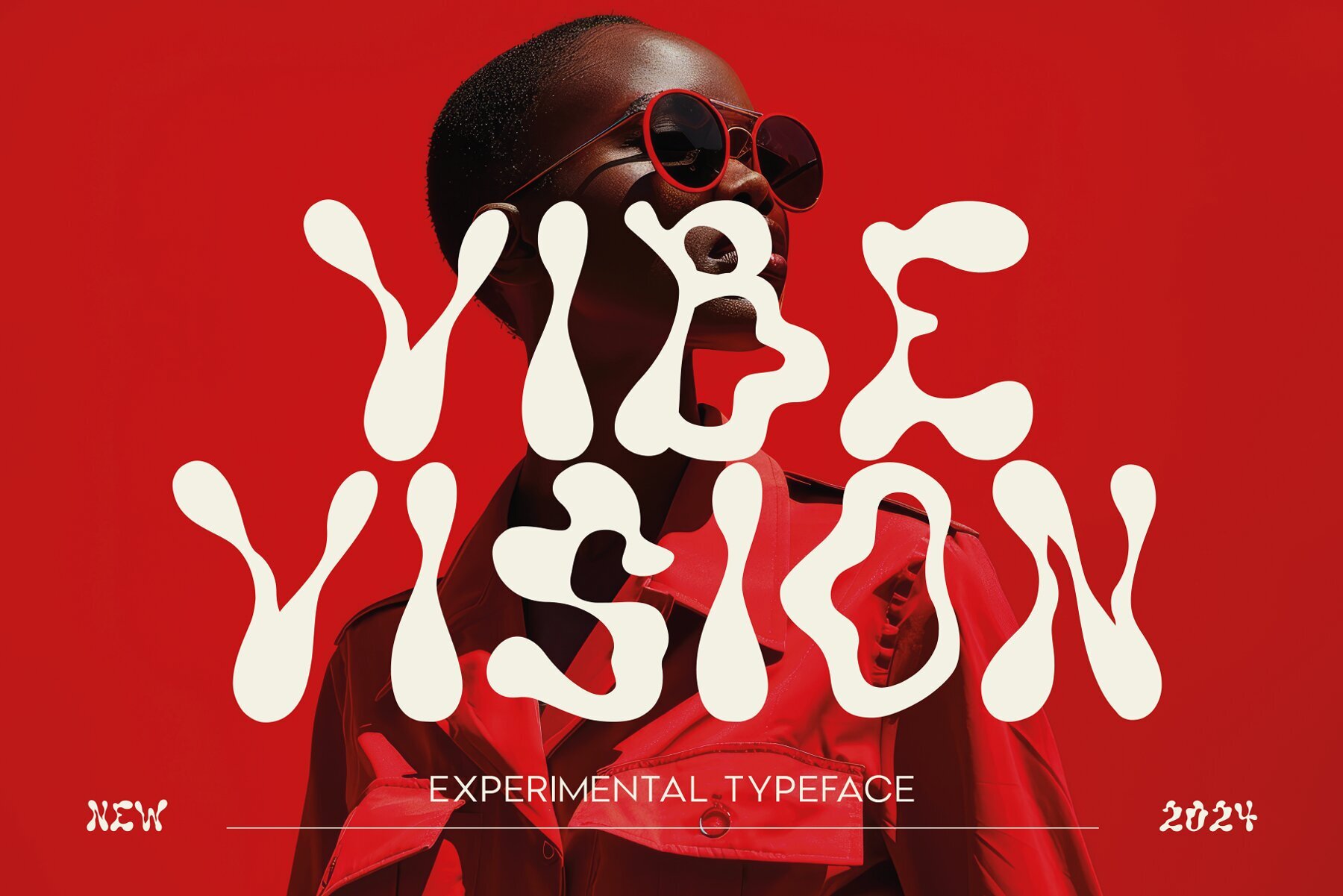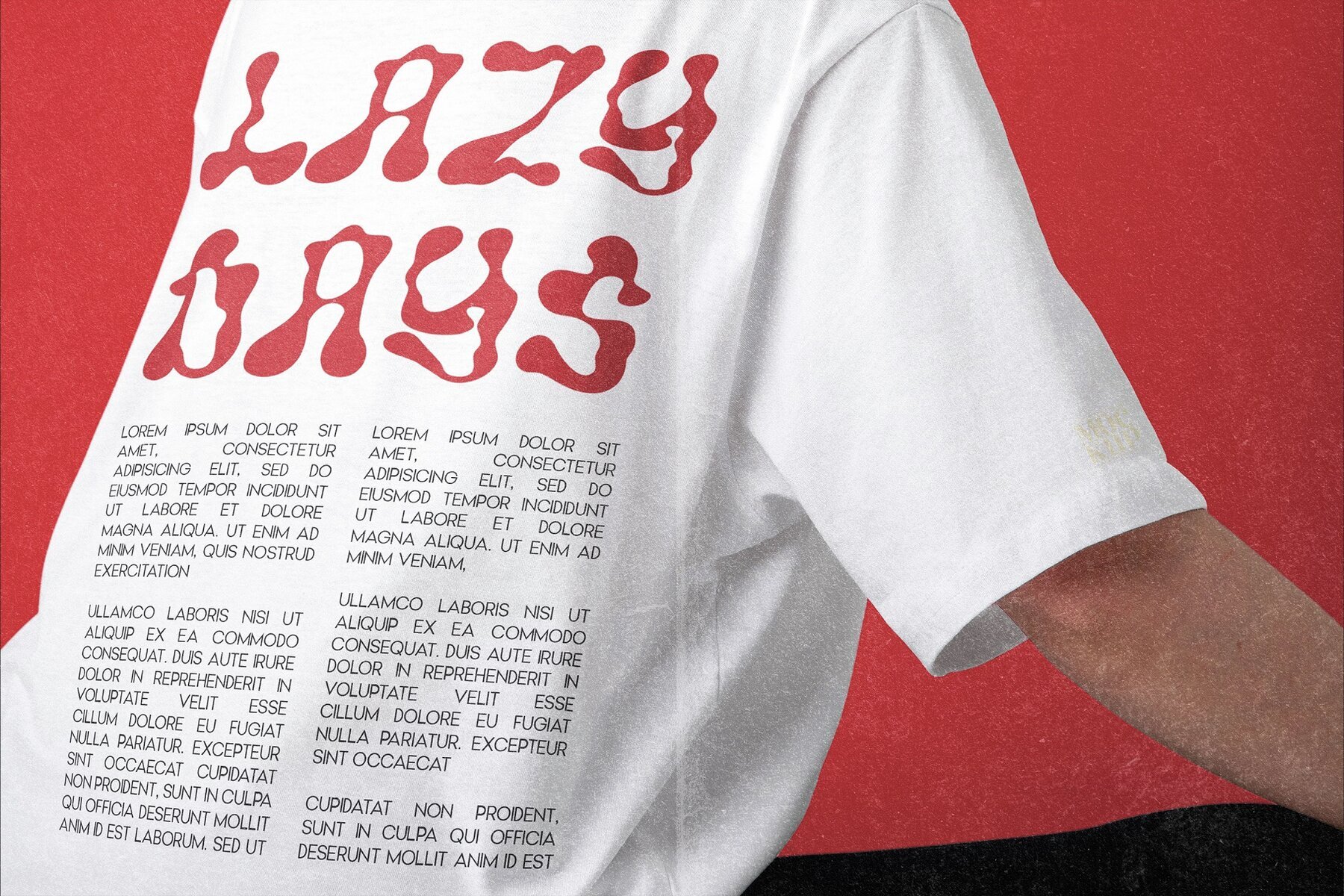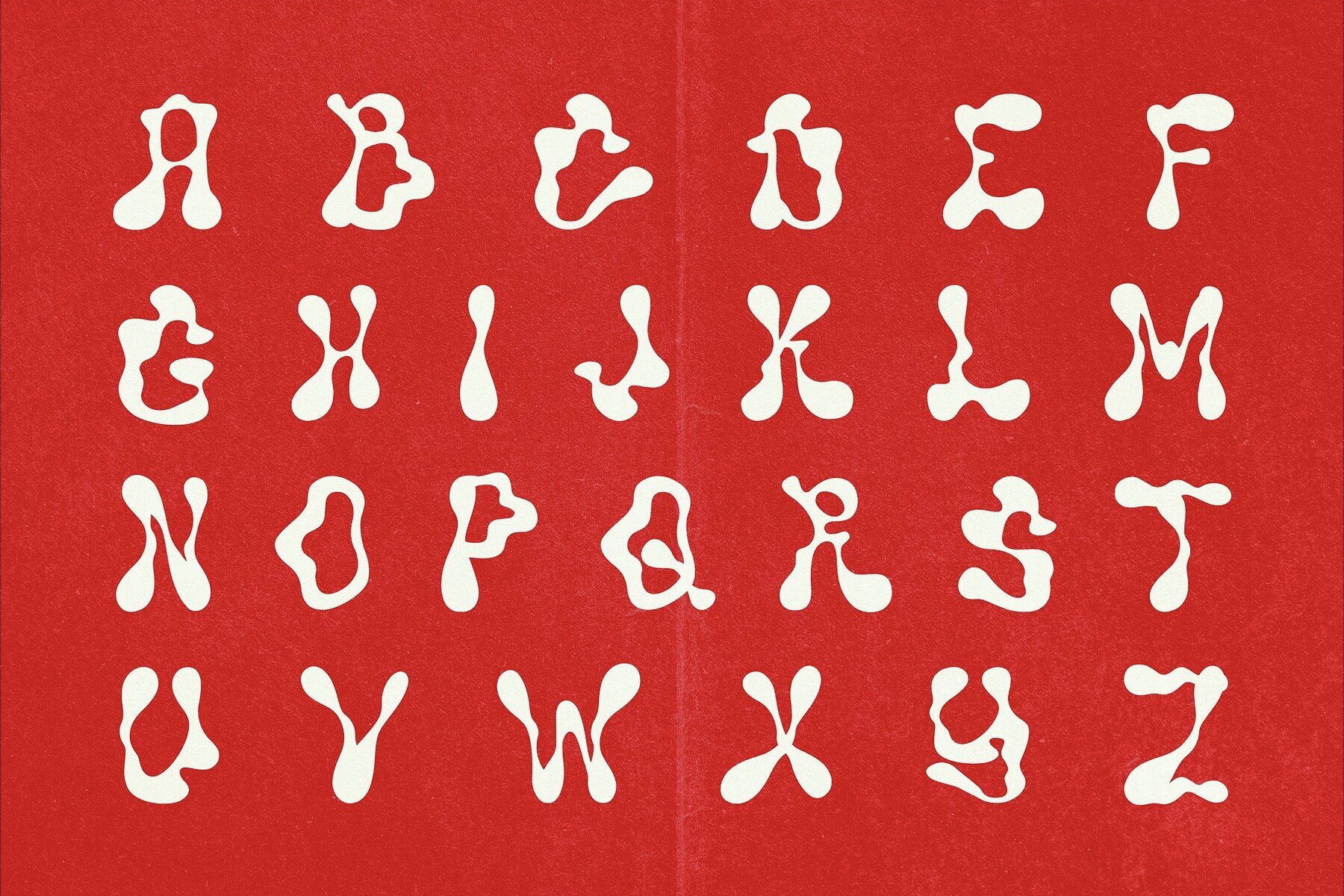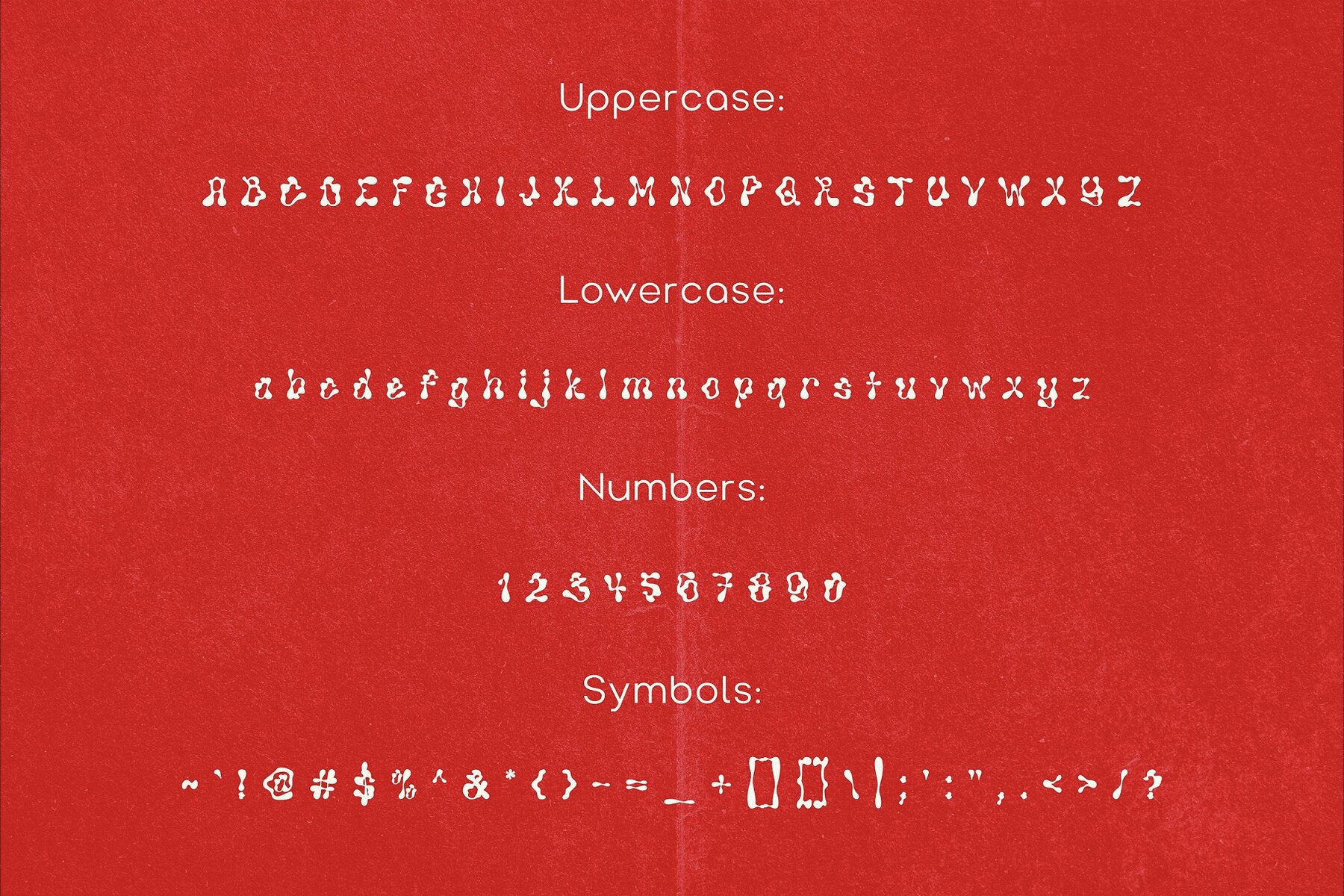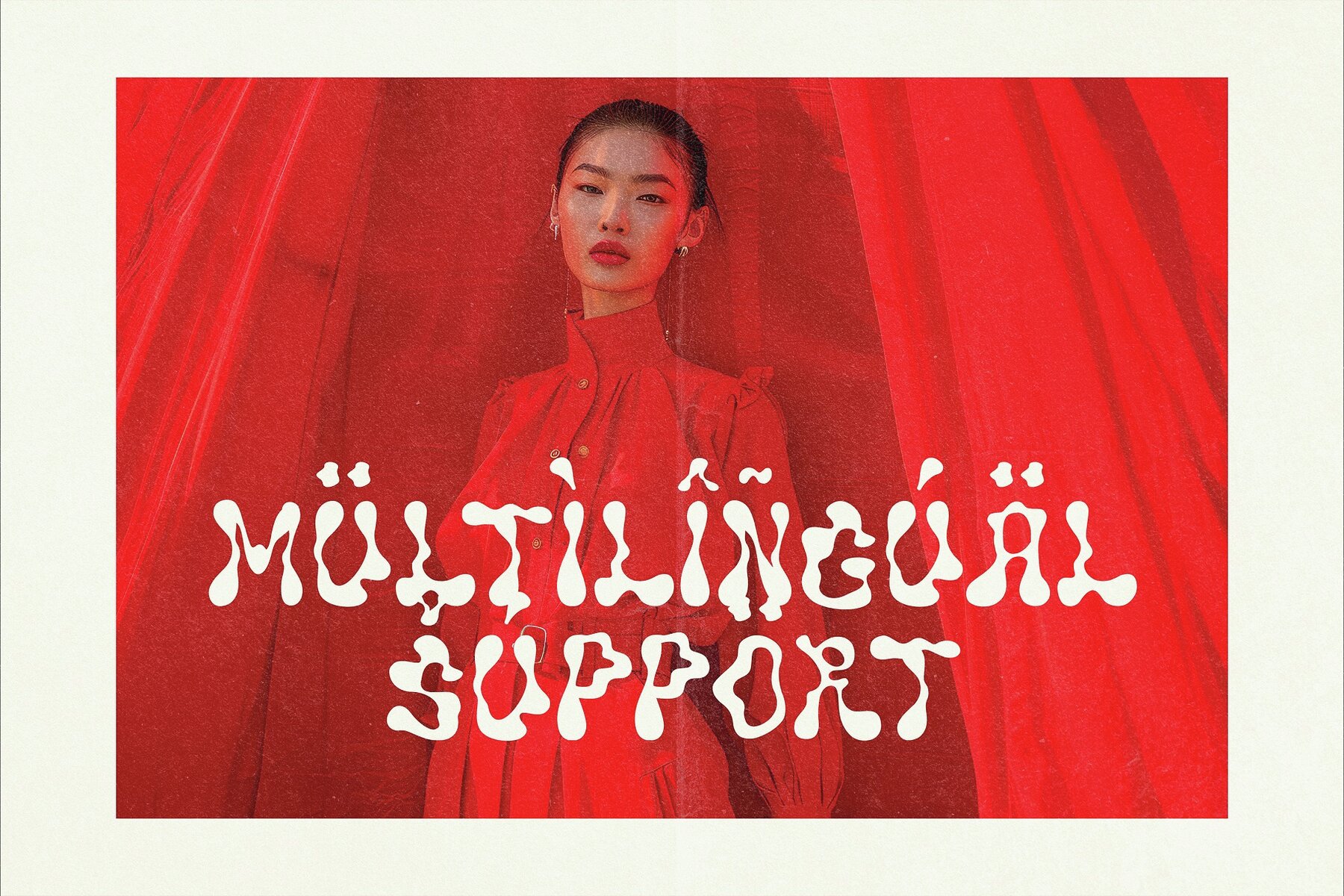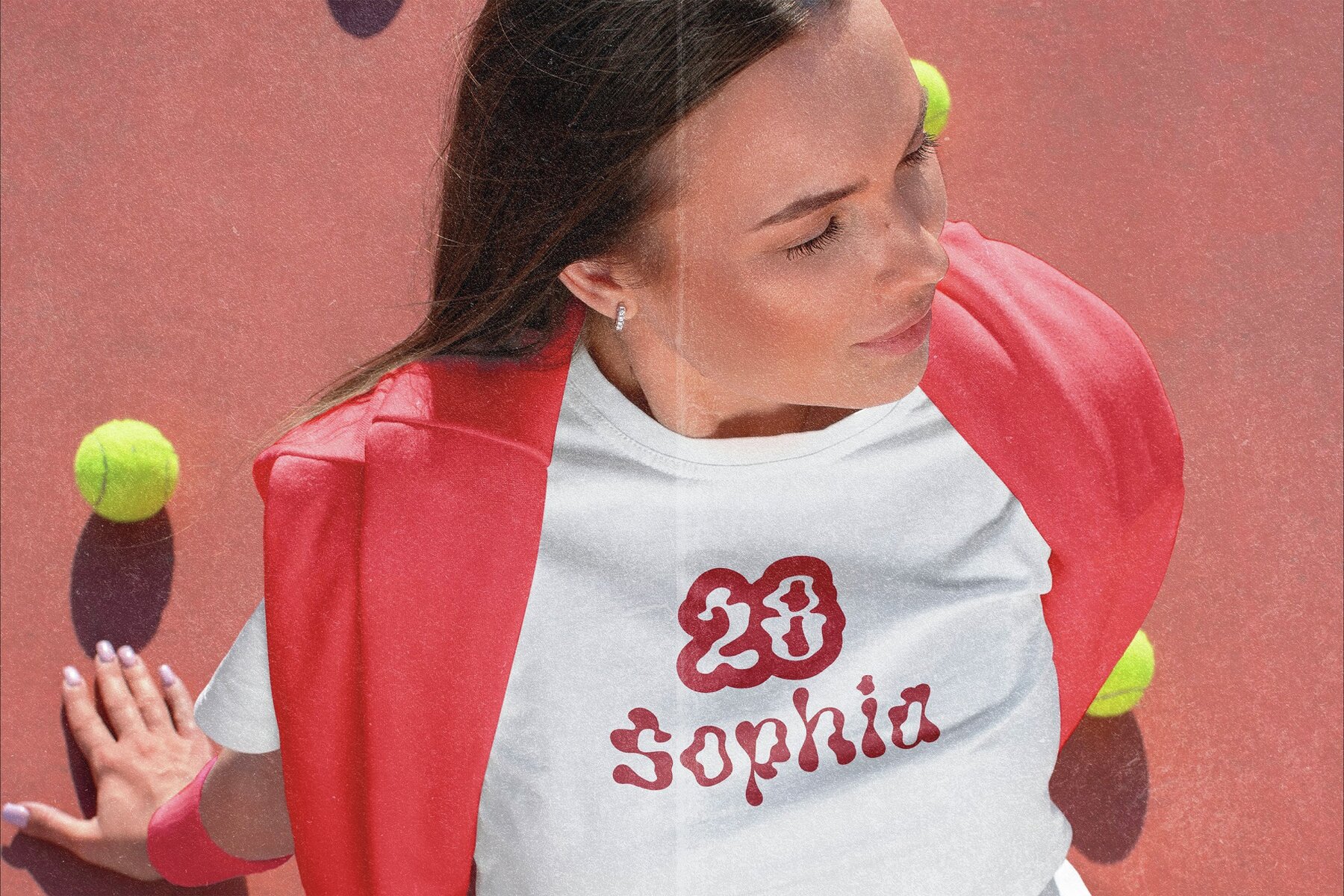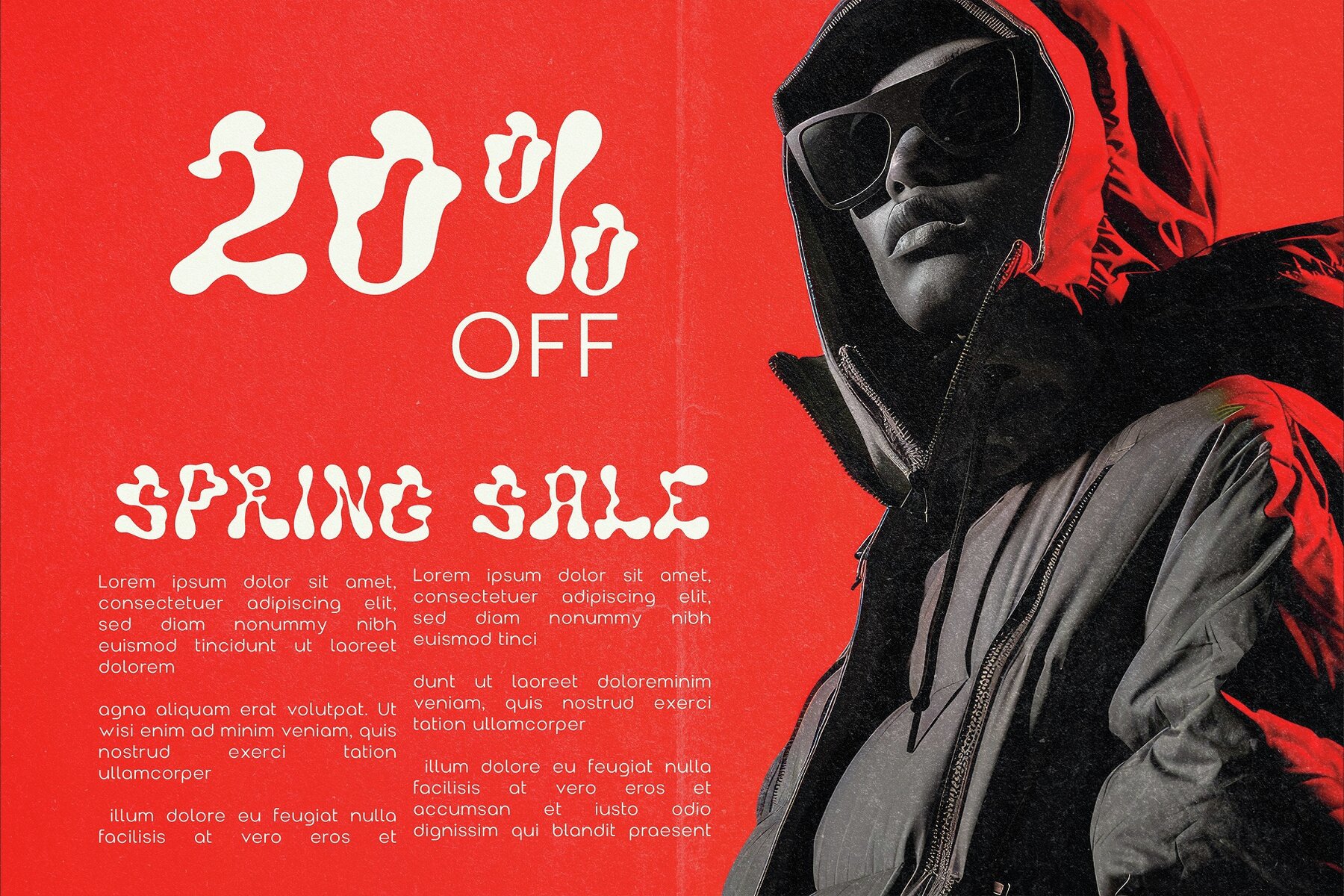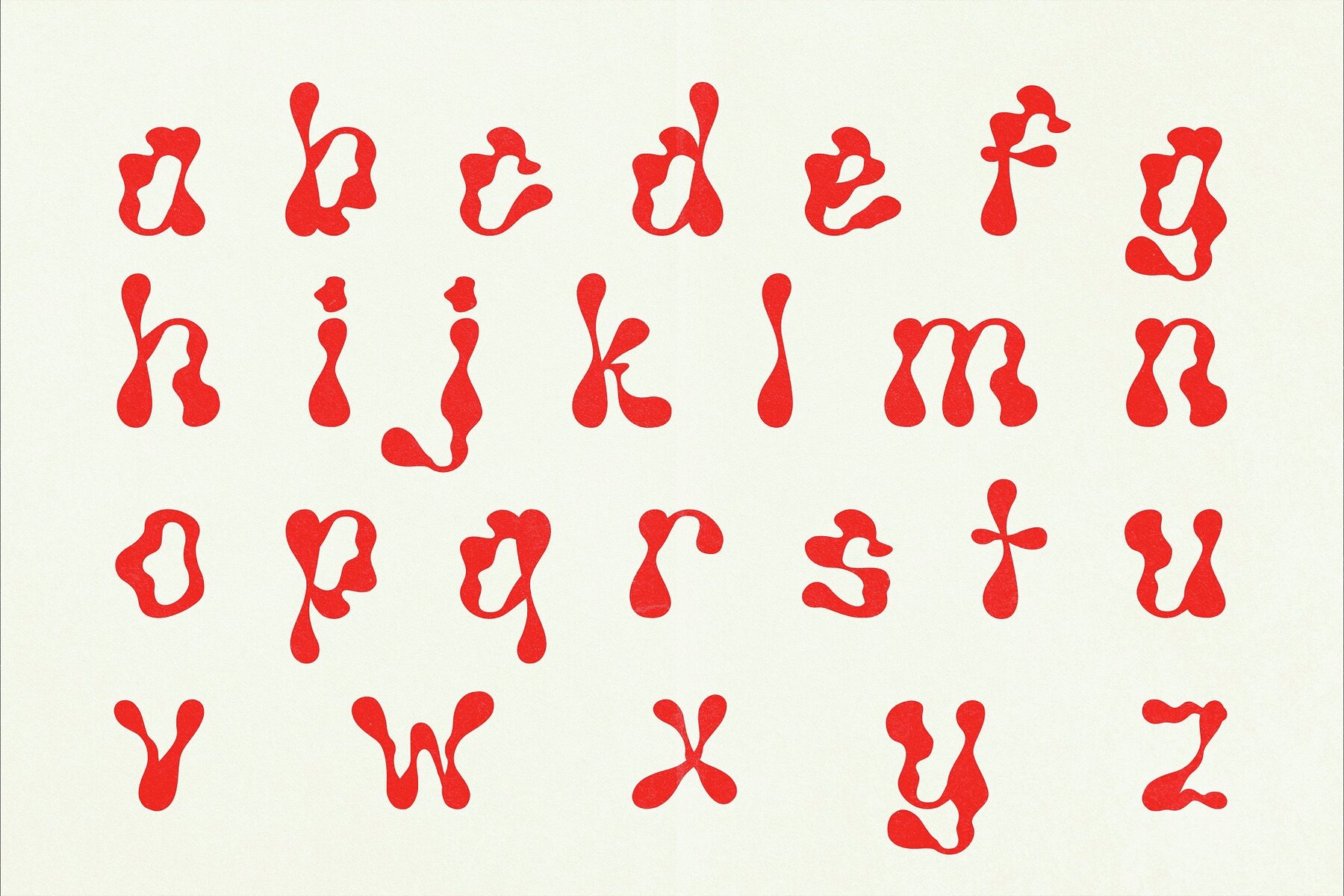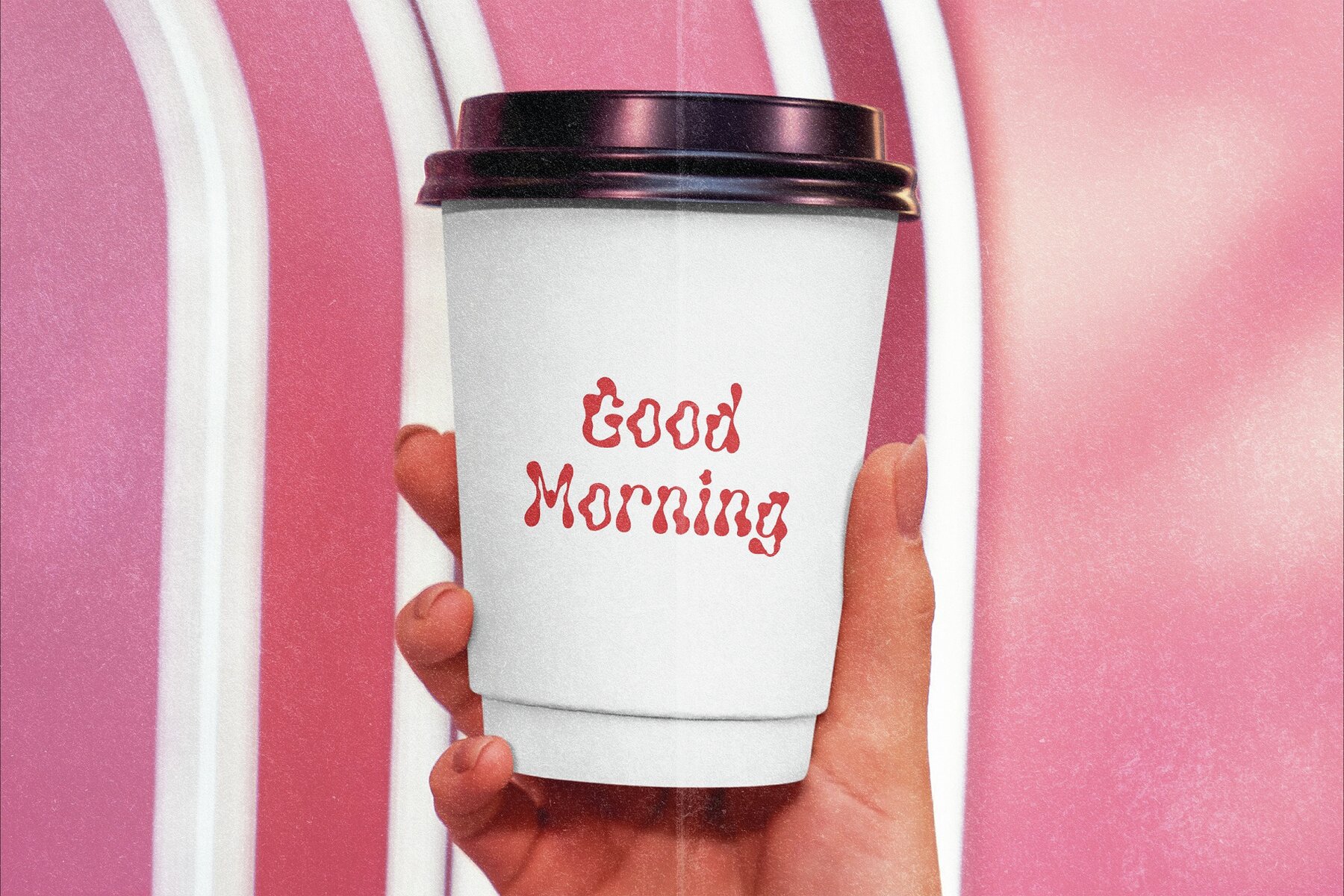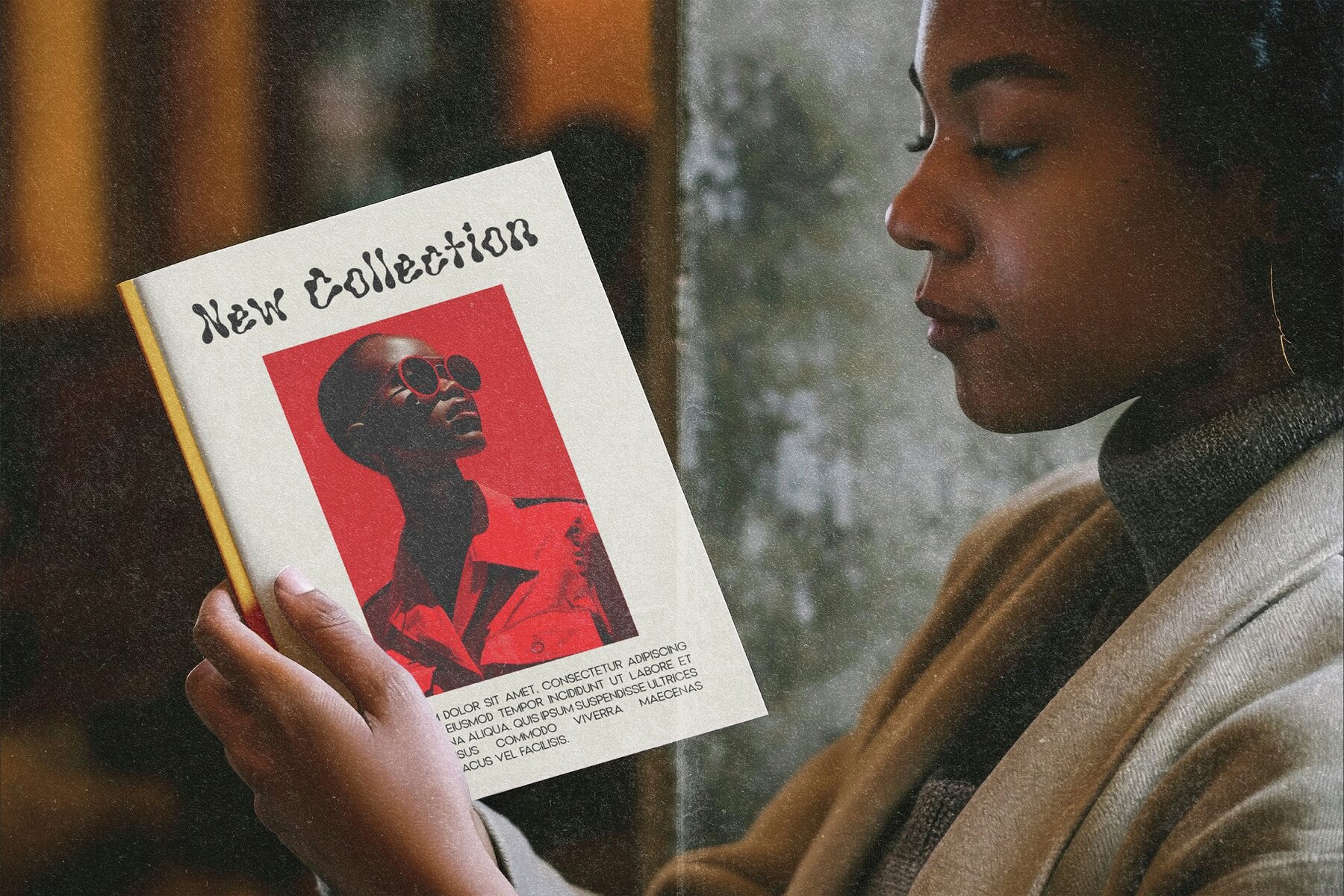
Vibe Vision Font
Vibe Vision
Introducing Vibe Vision, an experimental font that breaks the mold of conventional type design and ventures into the realm of abstract artistry. This typeface is a vibrant collection of characters that dares to defy the standards, encouraging designers to explore a world where form meets freedom. Each letter in Vibe Vision is a unique composition of organic shapes, flowing together to create an almost liquid-like state that captures the eye and ignites the imagination. The font speaks to the heart of innovation, blending aspects of typography and surrealism into a cohesive, artistic expression. Vibe Vision is a bold choice for creatives looking to make a statement, ideal for artistic branding, edgy editorial work, and any project that desires to stand out. It is as versatile as it is distinctive, offering endless possibilities for animation, logo design, and modern art installations. The typeface excels in environments that embrace the avant-garde and is a perfect ally for brands that identify with being at the edge of design. Vibe Vision is not just a font; it's a challenge to the status quo, a leap into a future where type becomes a primary element of visual storytelling.